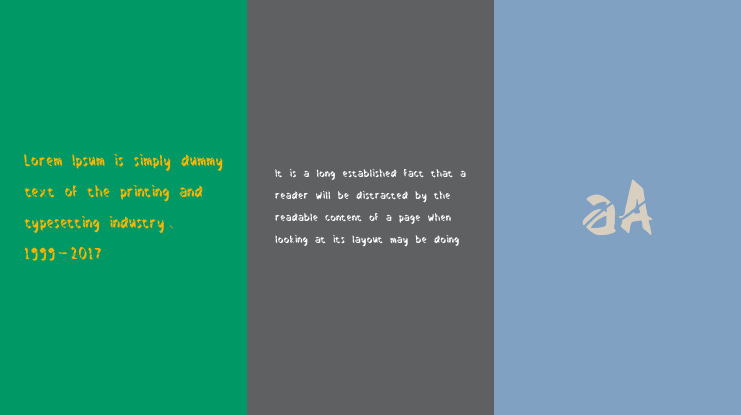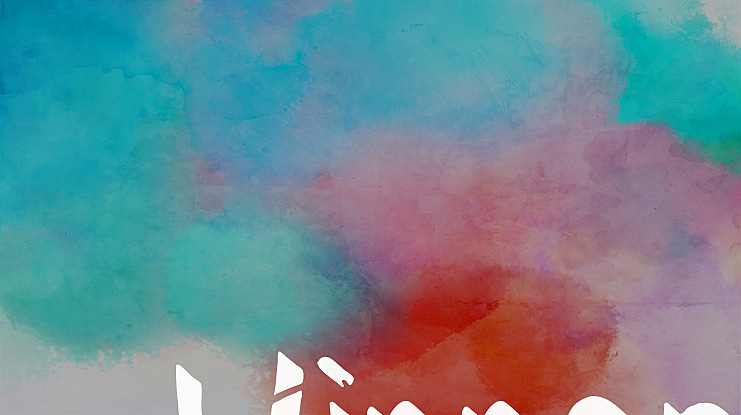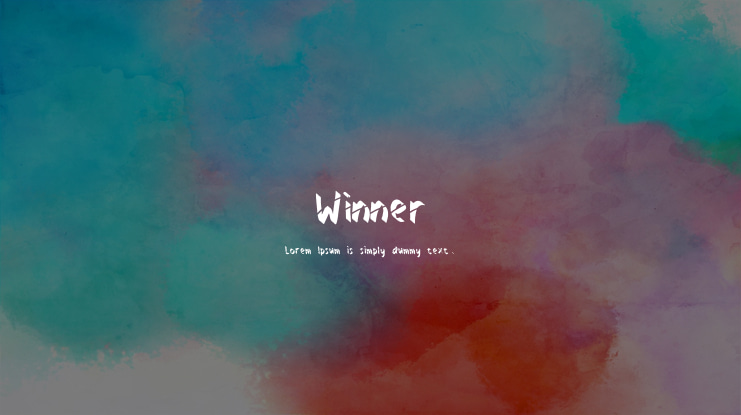
Winner Font
Winner is a bold and trendy display font. Add this beautiful display font to each of your creative ideas and notice how it makes them stand out!